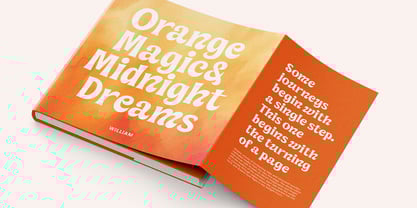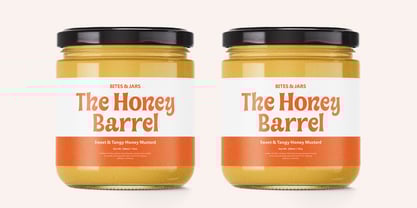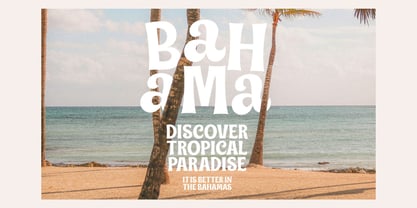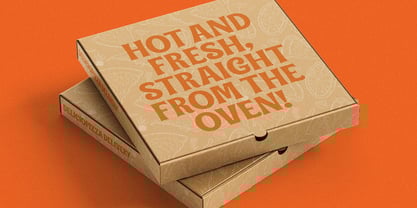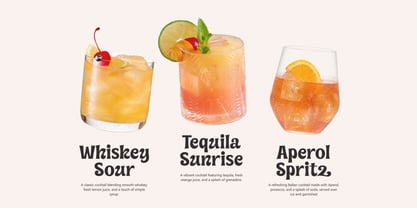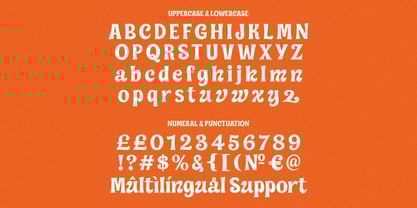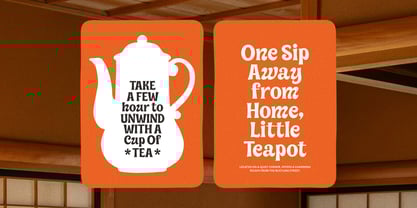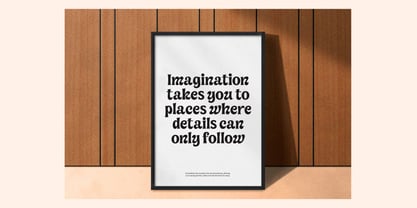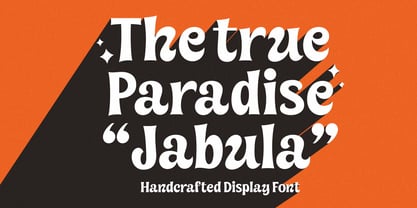
Jabula
von Four Lines Std
Die Schriftfamilie Jabula wurde von Zain Fahroni entworfen und von Four Lines Std veröffentlicht. Jabula enthält 1 Stile.
Jabula Handcrafted Display is a bold serif font with an organic, handcrafted touch. Its playful curves and dynamic edges bring a lively personality to any design — from retro posters and packaging to eye-catching headlines. Perfect for brands that want to stand out with a strong yet friendly vibe, Jabula is versatile for logos, invitations, social media graphics, and more, making it a reliable choice for both modern and classic design projects.